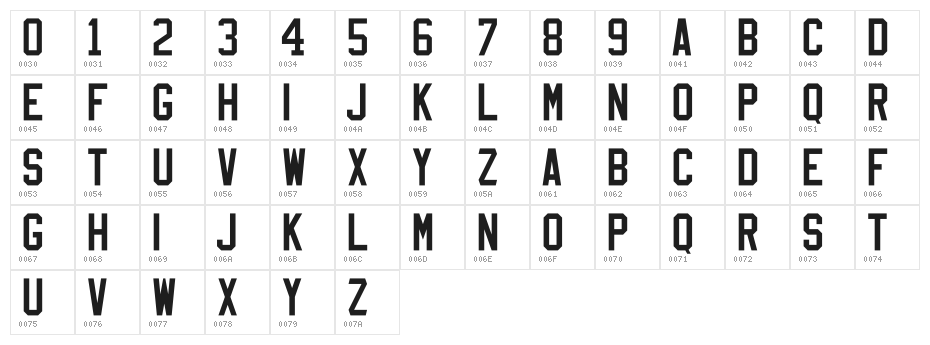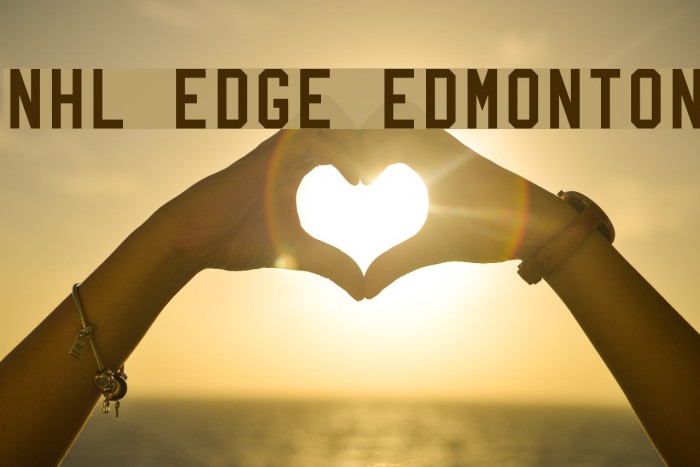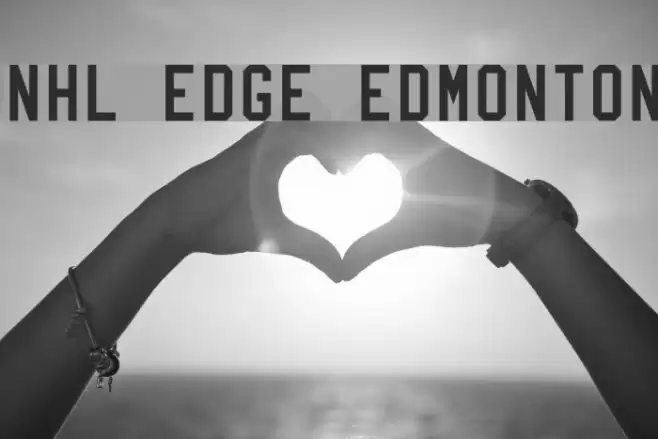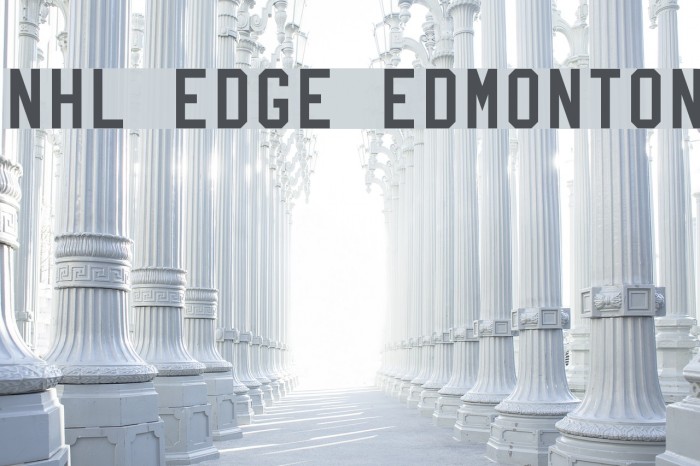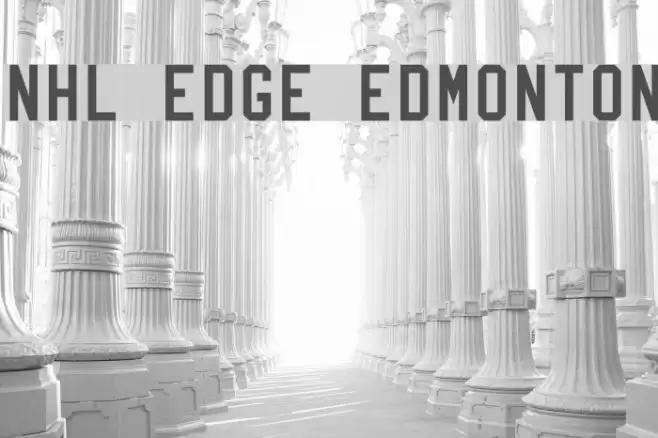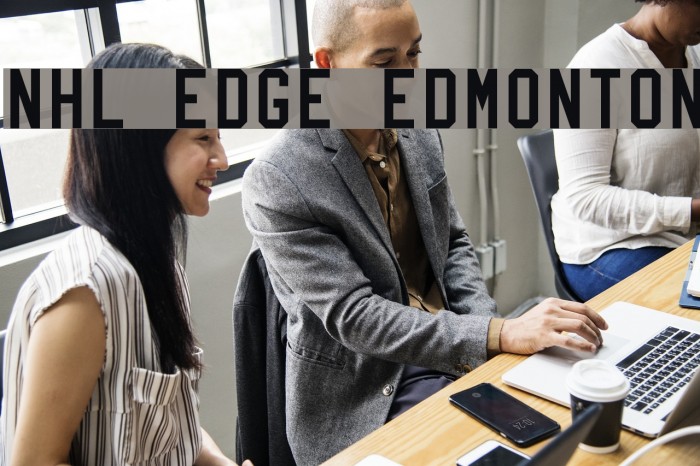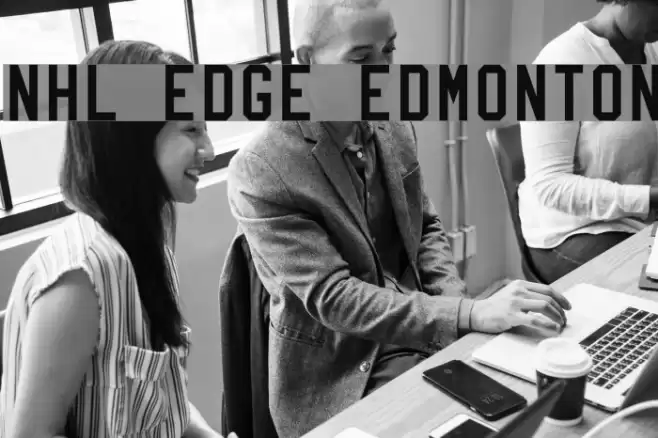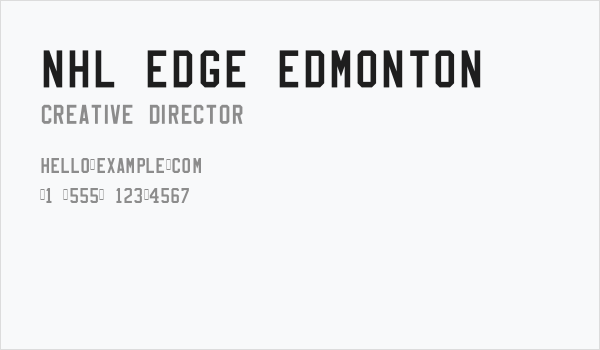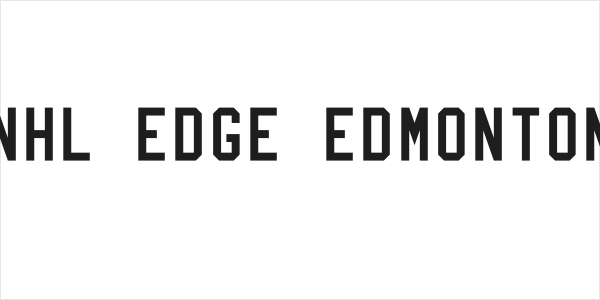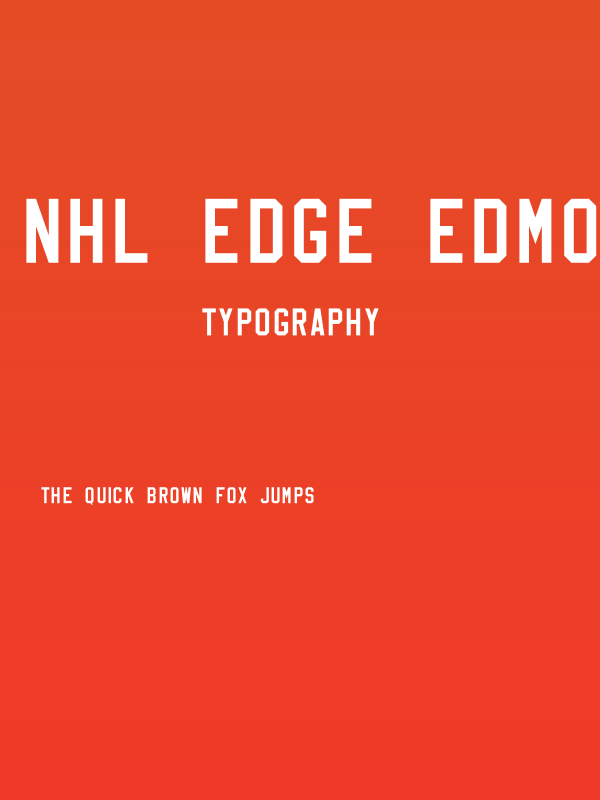
NHL Edge Edmonton Font
NHL Edge Edmonton Description
This font features a bold and geometric design, characterized by its strong, angular lines and uniform stroke width. The uppercase letters are particularly striking, with a blocky, athletic feel that suggests strength and stability. The numerals follow the same robust style, making them highly legible and impactful. The absence of lowercase letters and special characters in the image suggests a focus on simplicity and directness. This font is ideal for creating a commanding presence in any design, whether it's for sports branding, posters, or headlines.
| Proposed Projects | Ideal for sports branding, posters, headlines, and any design requiring a strong, impactful presence. |